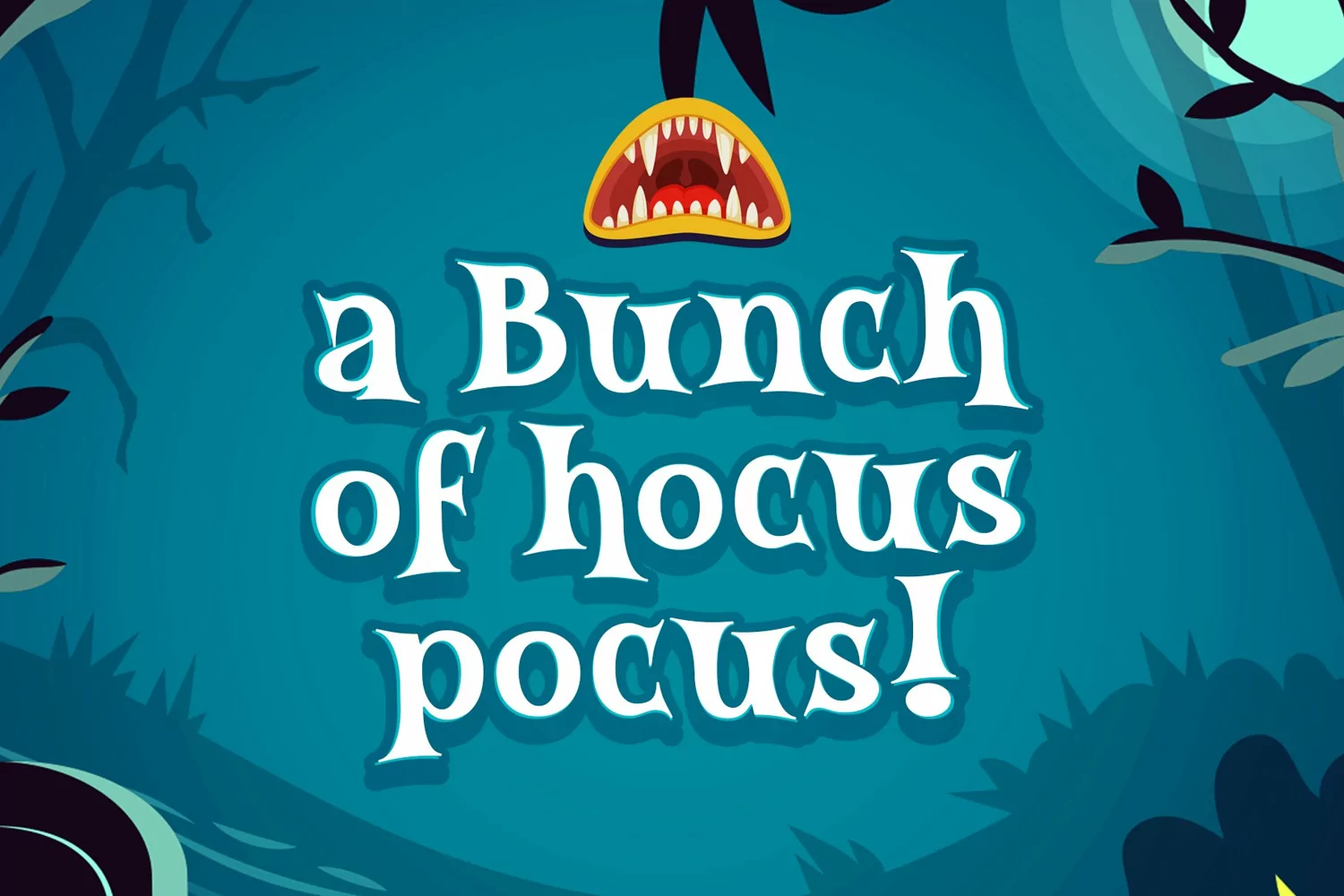
Whispy is perfect for any product packaging, branding project, magazine, titles, logo, social media, or just used to express words above the background.